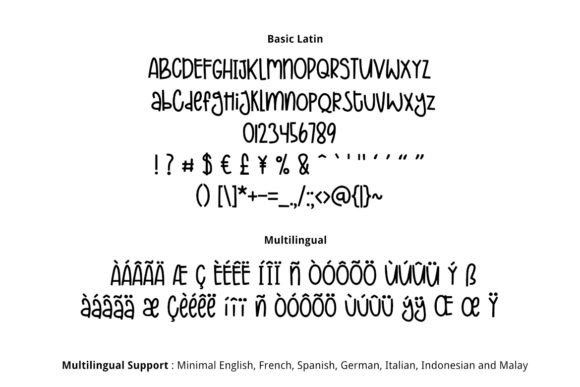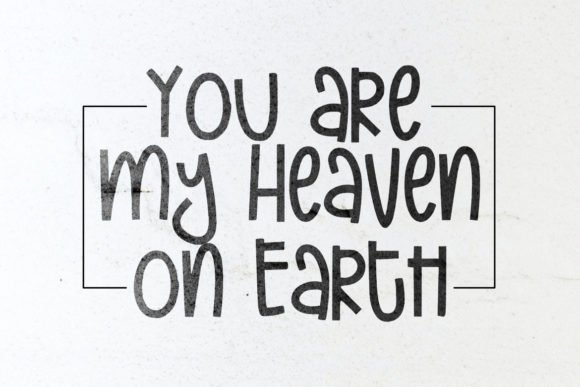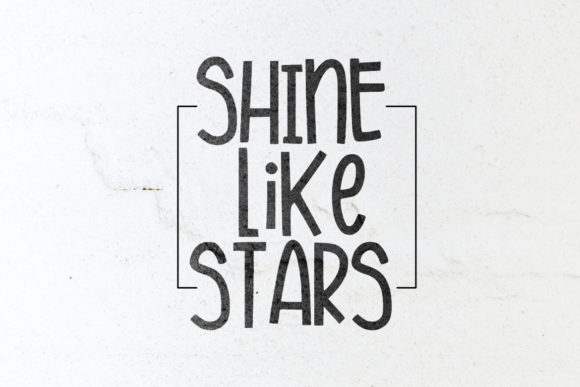
Creamy Pastel Font: A Cute and Quirky Display Font for Your Design Needs
Are you a designer or crafter looking for a font that can add a touch of cuteness and quirkiness to your projects? Look no further than the Creamy Pastel font! This lovely and childish display font is perfect for a variety of school projects or informal design ideas, and is sure to make your work stand out.
What is Creamy Pastel Font?
Creamy Pastel is a display font that features a unique and playful design. The font is characterized by its soft, rounded edges and pastel colors, which give it a sweet and innocent look. The font is perfect for designs that require a touch of whimsy and fun, such as children’s party invitations, school projects, and craft designs.
Key Features of Creamy Pastel Font
- Cute and Quirky Design: The Creamy Pastel font features a unique and playful design that is sure to capture the attention of your audience.
- Lovely and Childish: The font’s soft, rounded edges and pastel colors give it a sweet and innocent look that is perfect for designs that require a touch of whimsy and fun.
- Perfect for School Projects: The Creamy Pastel font is ideal for school projects, such as posters, presentations, and reports.
- Informal Design Ideas: The font is also perfect for informal design ideas, such as party invitations, greeting cards, and social media graphics.
How to Use Creamy Pastel Font
- Pair with Other Fonts: The Creamy Pastel font looks great when paired with other fonts, such as sans-serif fonts or script fonts.
- Use Bright Colors: The font’s pastel colors are perfect for designs that require a touch of brightness and fun.
- Experiment with Different Sizes: The Creamy Pastel font looks great in a variety of sizes, from large headings to small body text.
Benefits of Using Creamy Pastel Font
There are many benefits to using the Creamy Pastel font in your designs. Here are a few:
- Adds a Touch of Whimsy: The Creamy Pastel font adds a touch of whimsy and fun to your designs, making them more engaging and attention-grabbing.
- Perfect for Kids’ Designs: The font is perfect for designs that require a childish and playful touch, such as kids’ party invitations and school projects.
- Easy to Read: The font is easy to read, even in small sizes, making it perfect for body text and captions.
Design Ideas Using Creamy Pastel Font
The Creamy Pastel font is versatile and can be used in a variety of design projects. Here are a few ideas to get you started:
- Kids’ Party Invitations: Use the Creamy Pastel font to create adorable kids’ party invitations that are sure to delight.
- School Projects: The font is perfect for school projects, such as posters, presentations, and reports.
- Craft Designs: Use the Creamy Pastel font to create cute and quirky craft designs, such as greeting cards and social media graphics.
| Author | YandiDesigns |
In conclusion, the Creamy Pastel font is a cute and quirky display font that is perfect for designers and crafters looking to add a touch of whimsy and fun to their projects. With its soft, rounded edges and pastel colors, this font is sure to make your work stand out. Whether you’re working on a school project or an informal design idea, the Creamy Pastel font is a great choice.